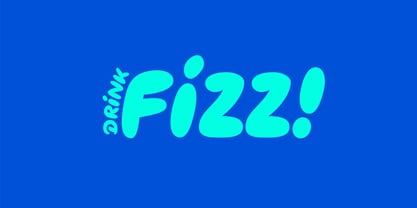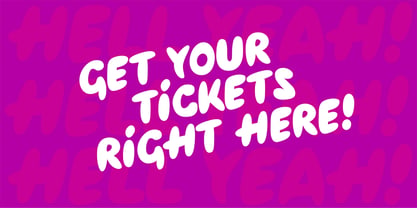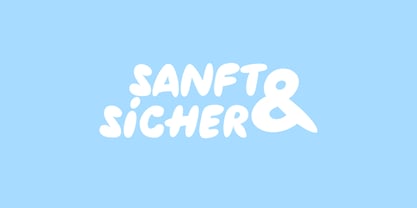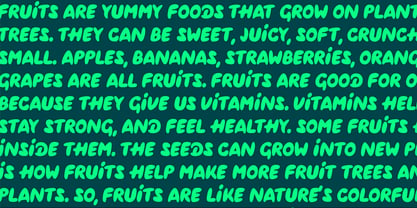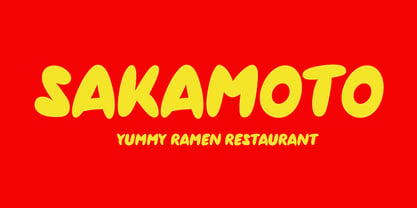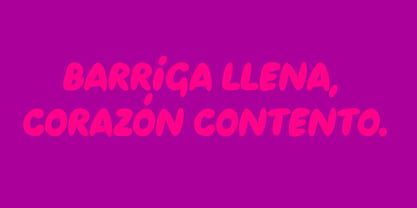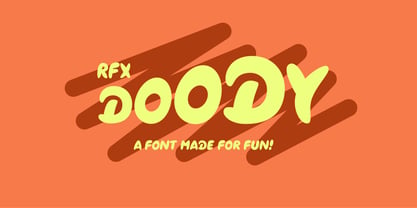
RFX Doody
The RFX Doody Font Family was designed by Roland Wittl and published by Xaver Design Studio. RFX Doody contains 1 styles. More about this family
RFX Doody is a lovely display typeface made for messages that deserve to feel lively, friendly and full of personality. Its soft, irregular letterforms combine chunky proportions with a spontaneous marker-like rhythm, creating an expressive look that feels playful without becoming difficult to read.
The typeface works especially well in logos, packaging, posters, children’s products, food and beverage branding, event graphics, social media, merchandise and attention-grabbing headlines. Its energetic shapes bring warmth and character to both short statements and larger blocks of display text.
Distinctive details, playful punctuation and an intentionally imperfect construction give every word a custom-lettered appearance. RFX Doody is a natural choice for cheerful brands, humorous campaigns and colourful visual identities, but it can also create an appealing contrast in more restrained layouts. Whether used loud and oversized or as a small expressive accent, RFX Doody turns simple words into memorable graphic elements.